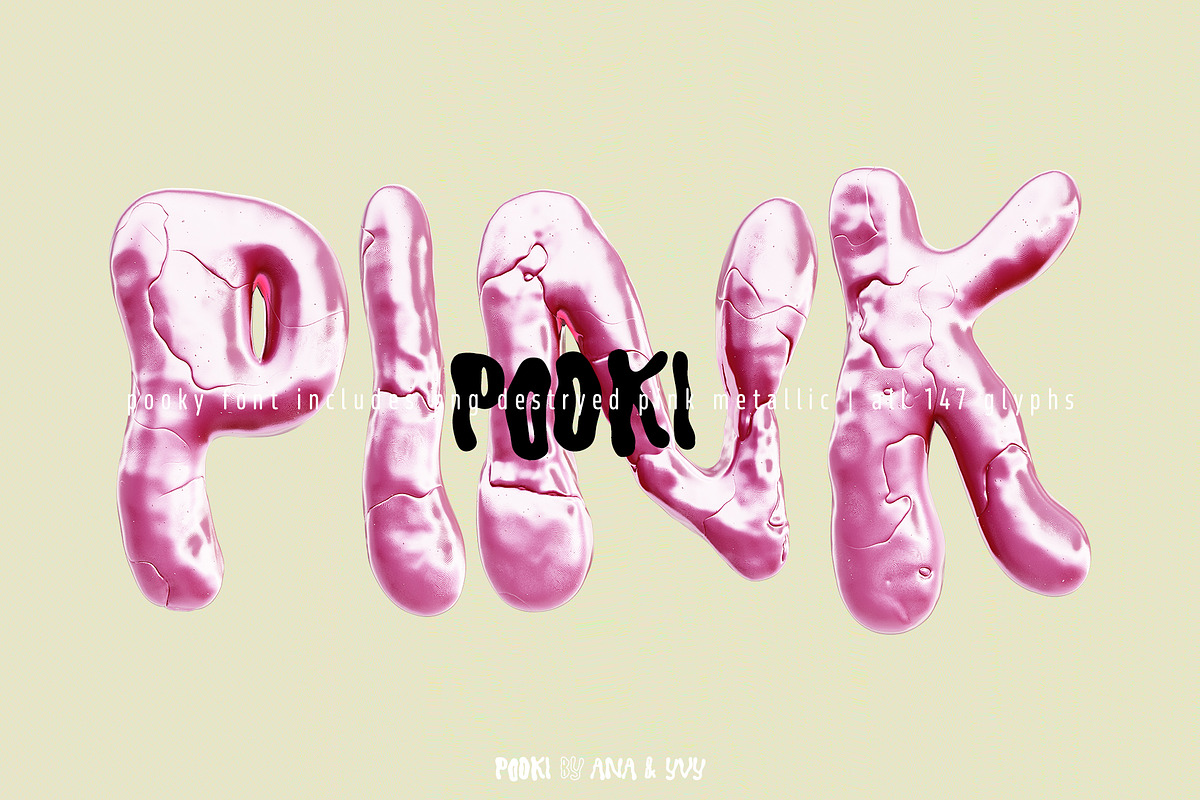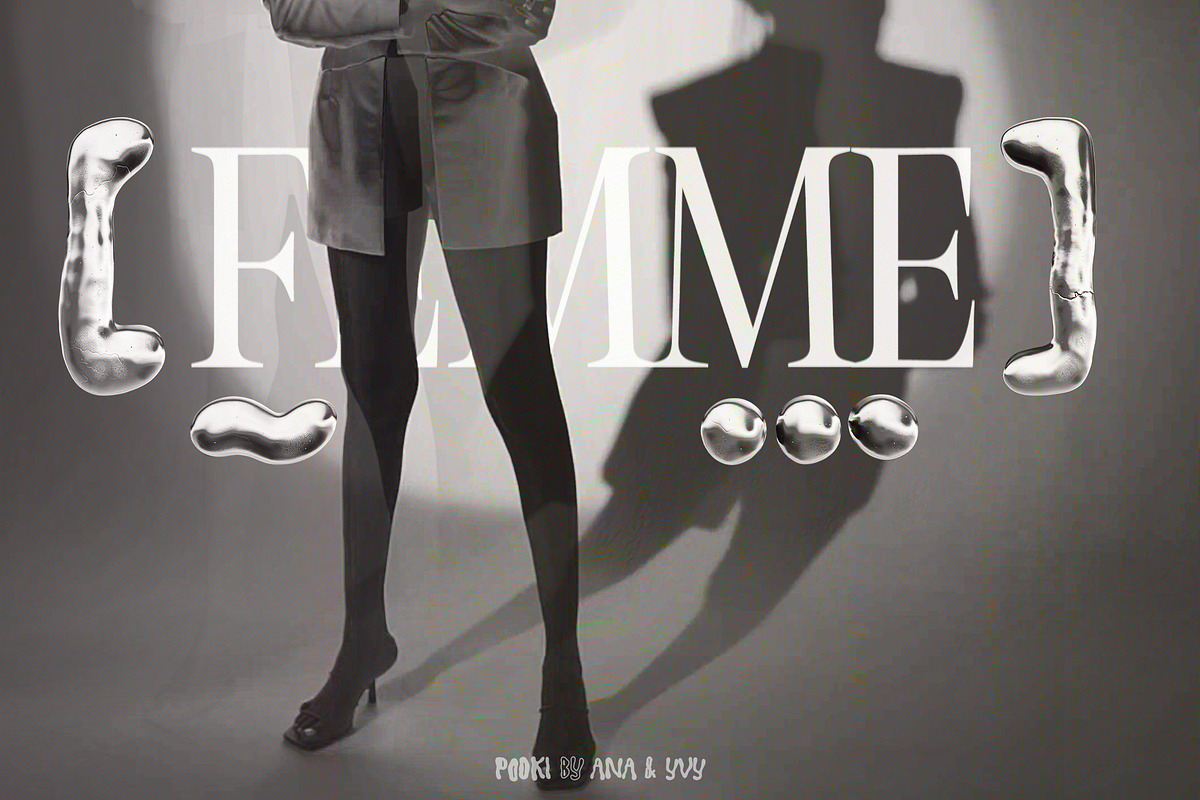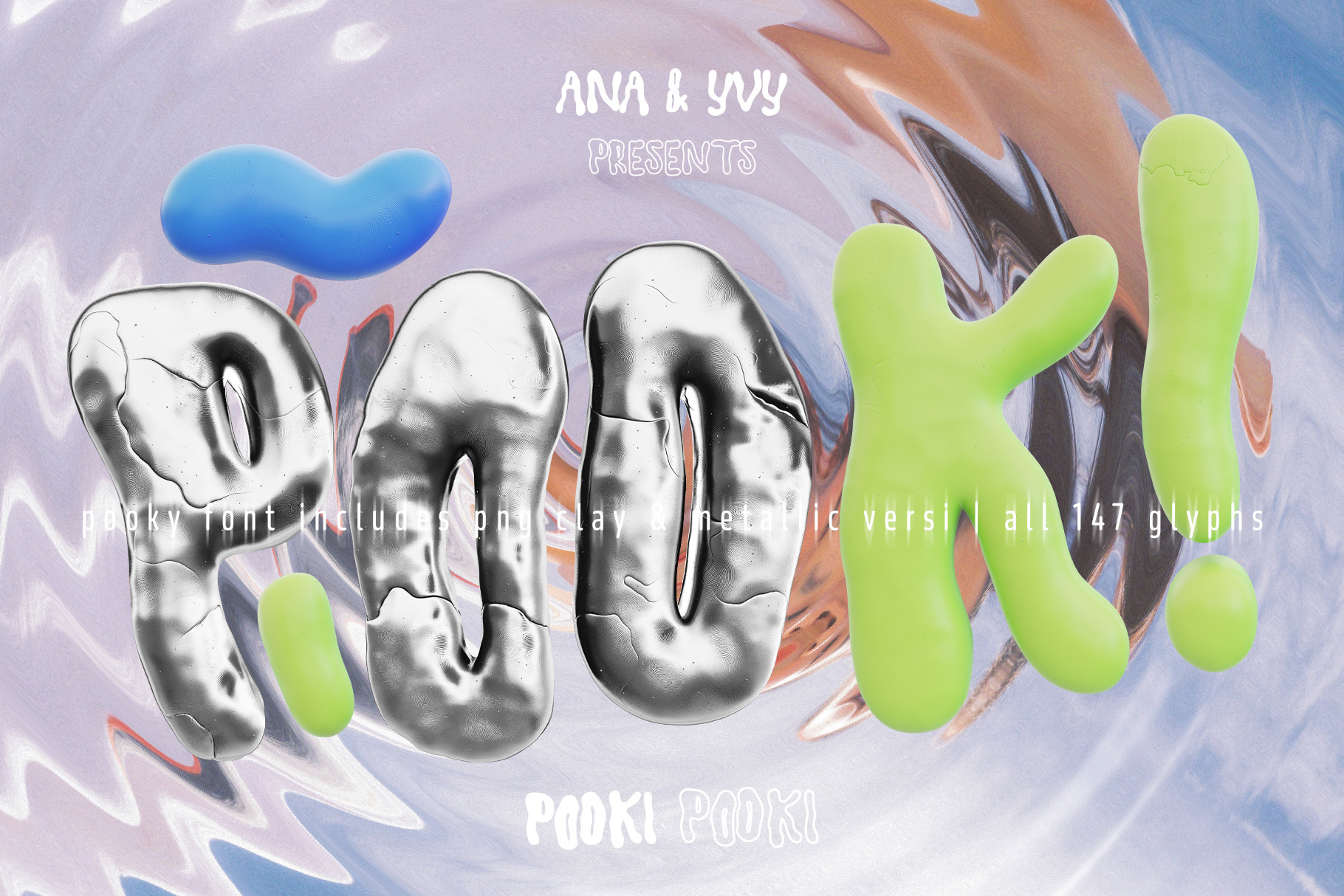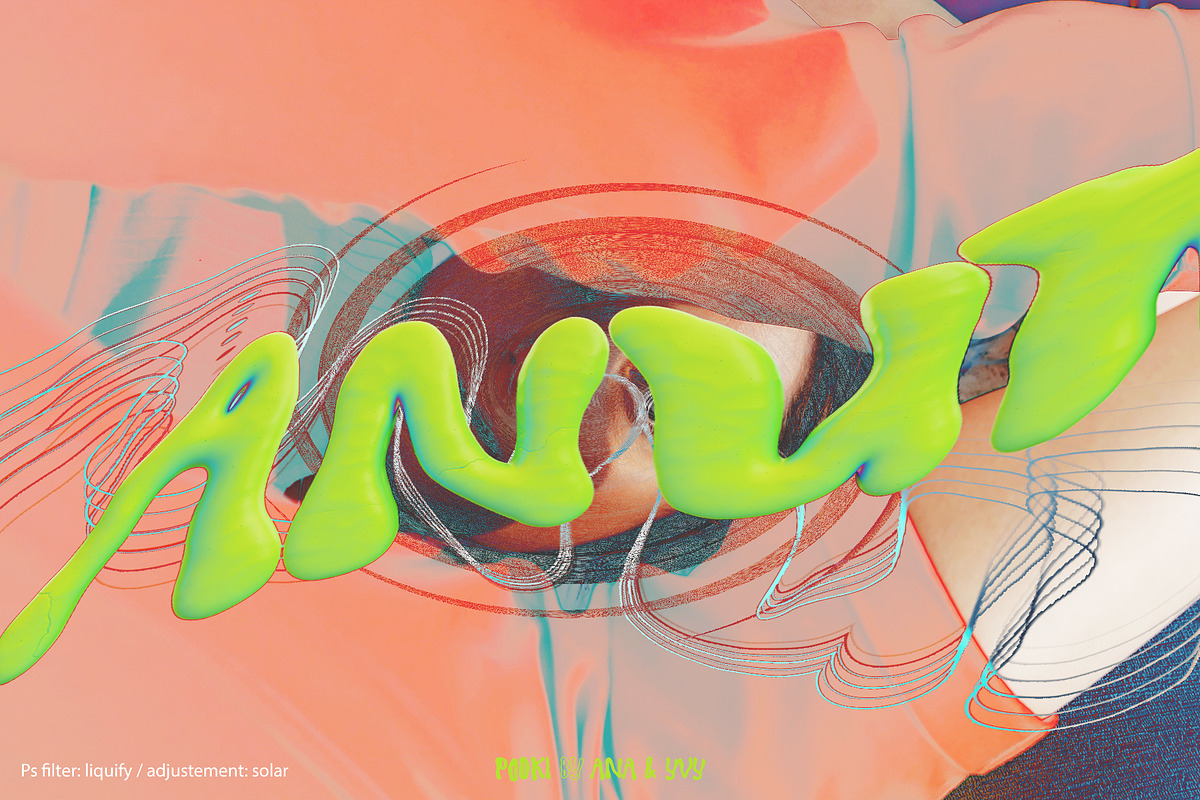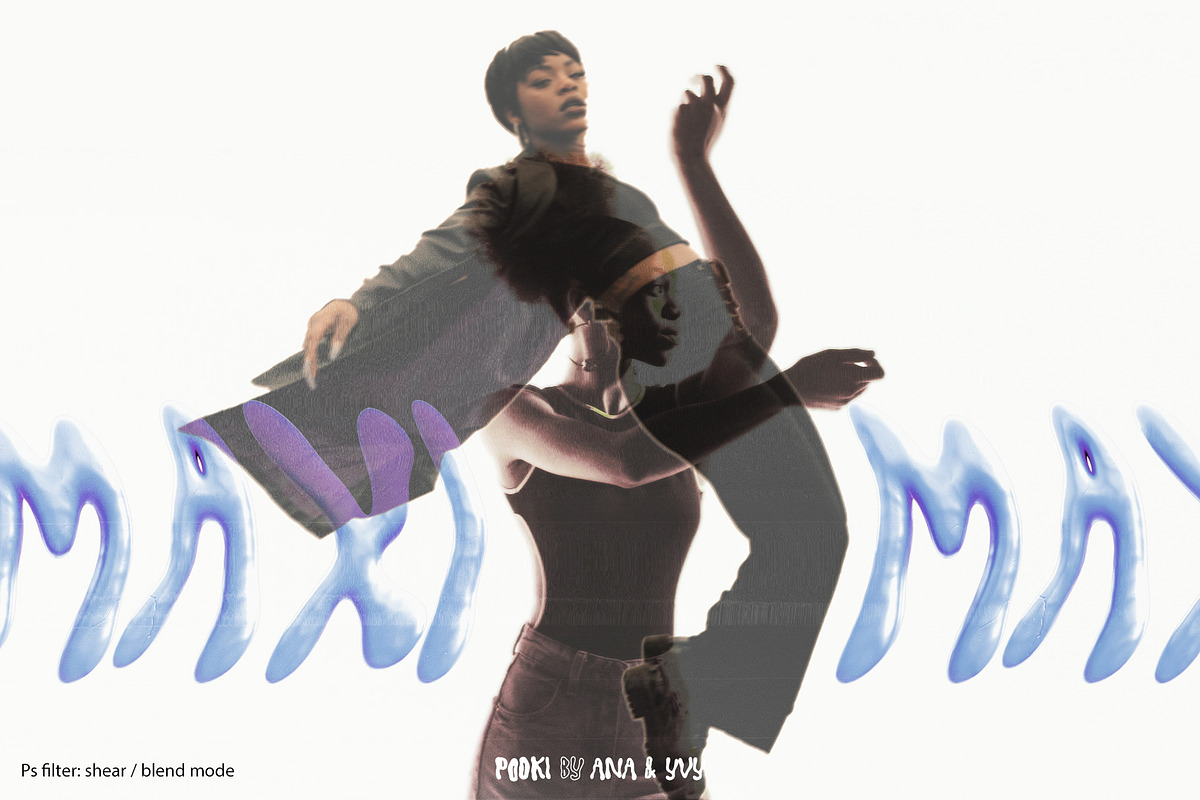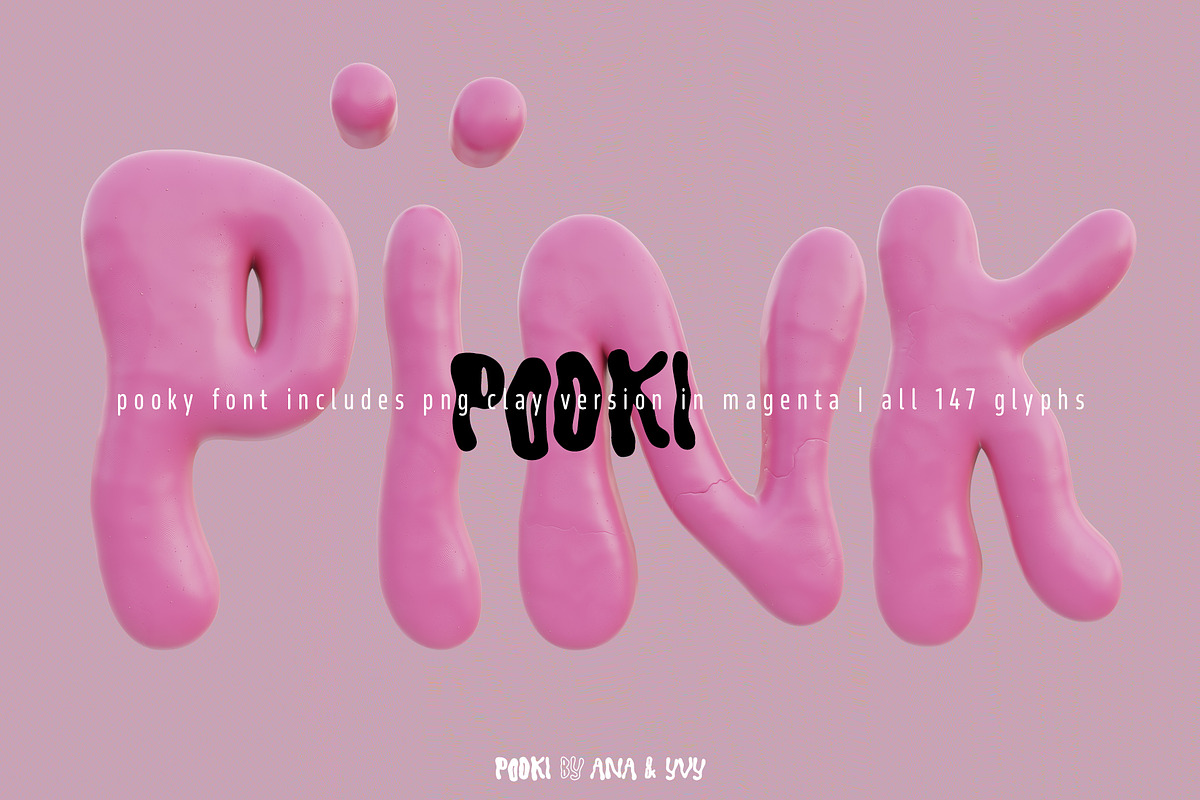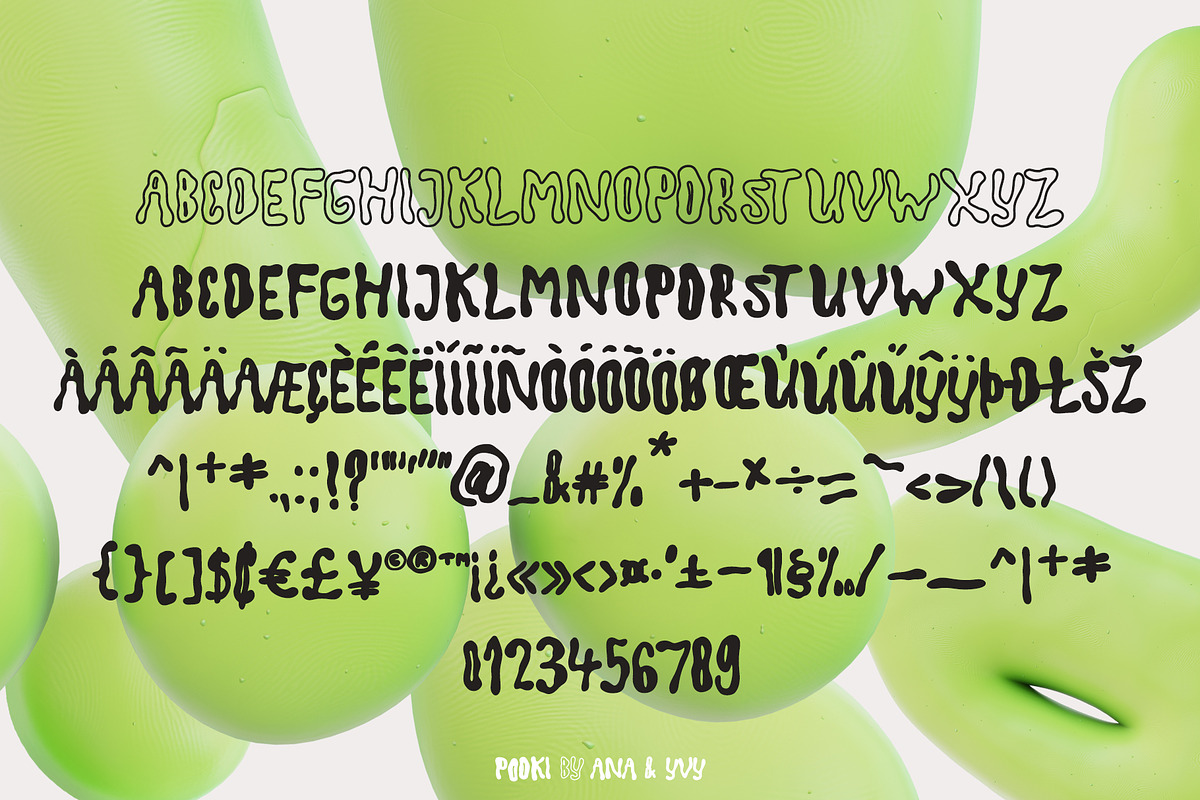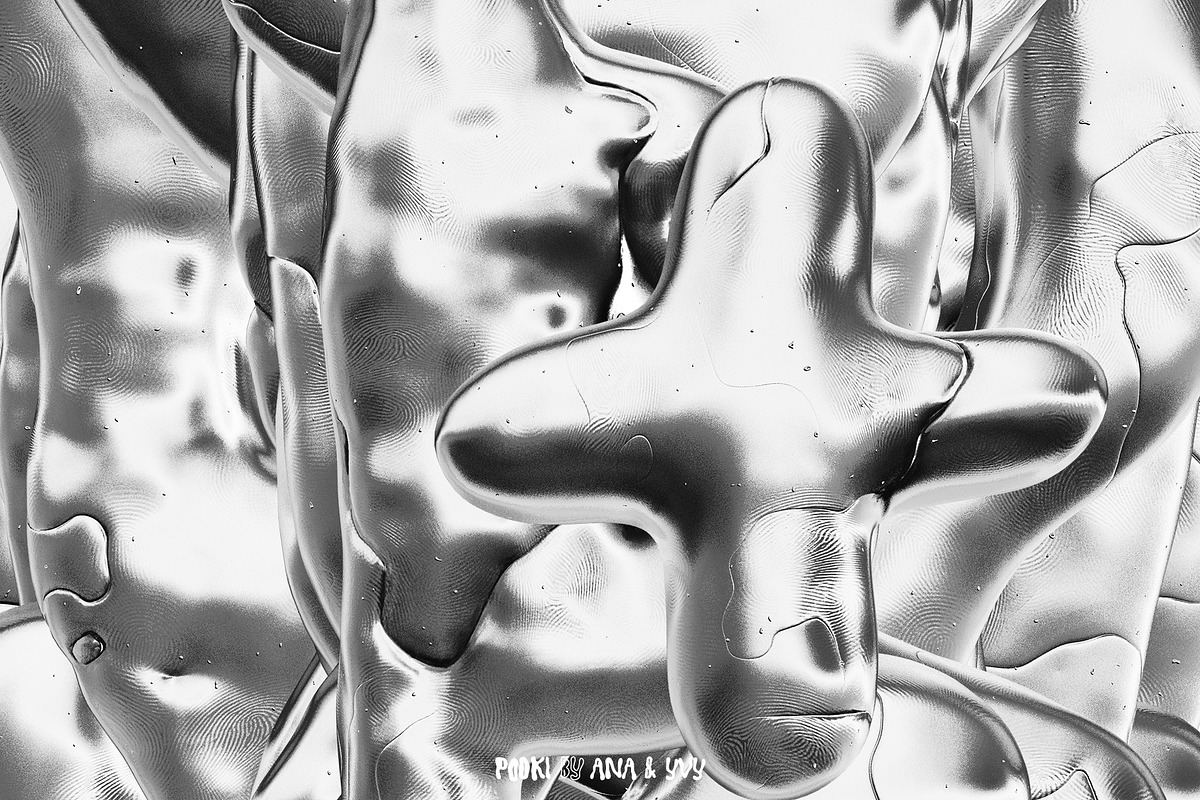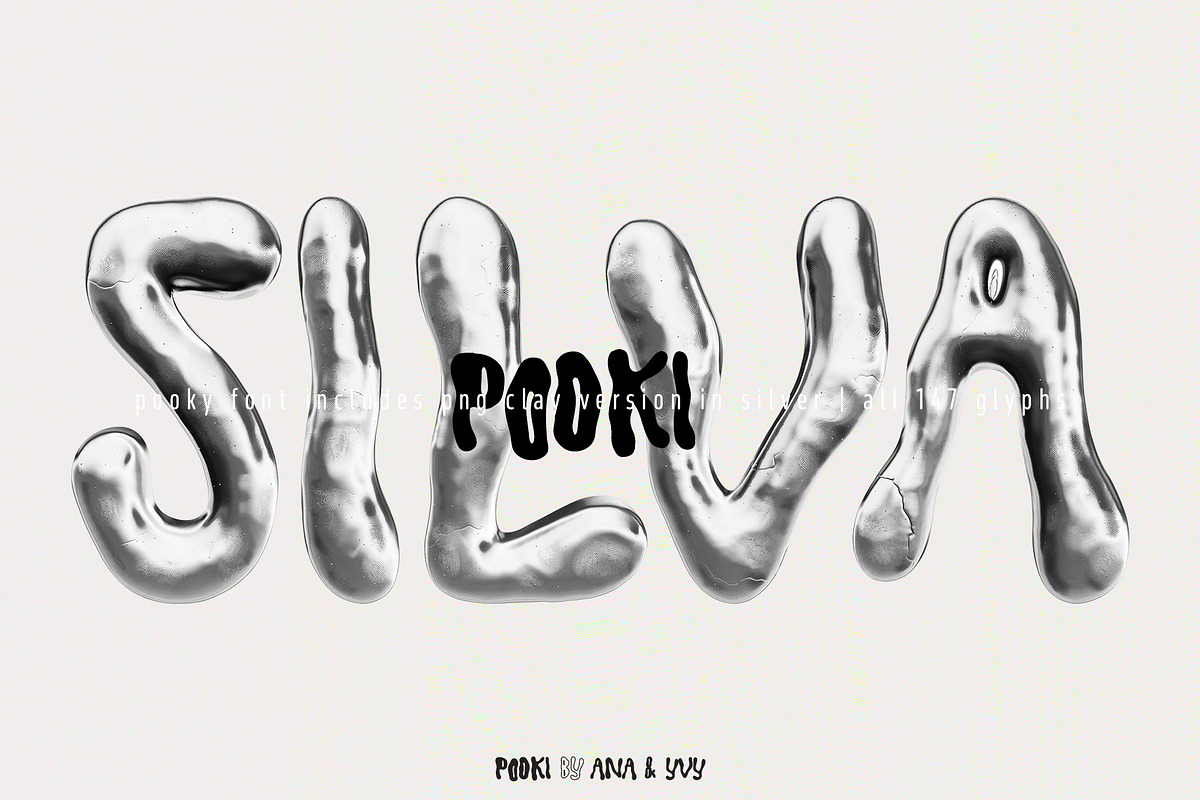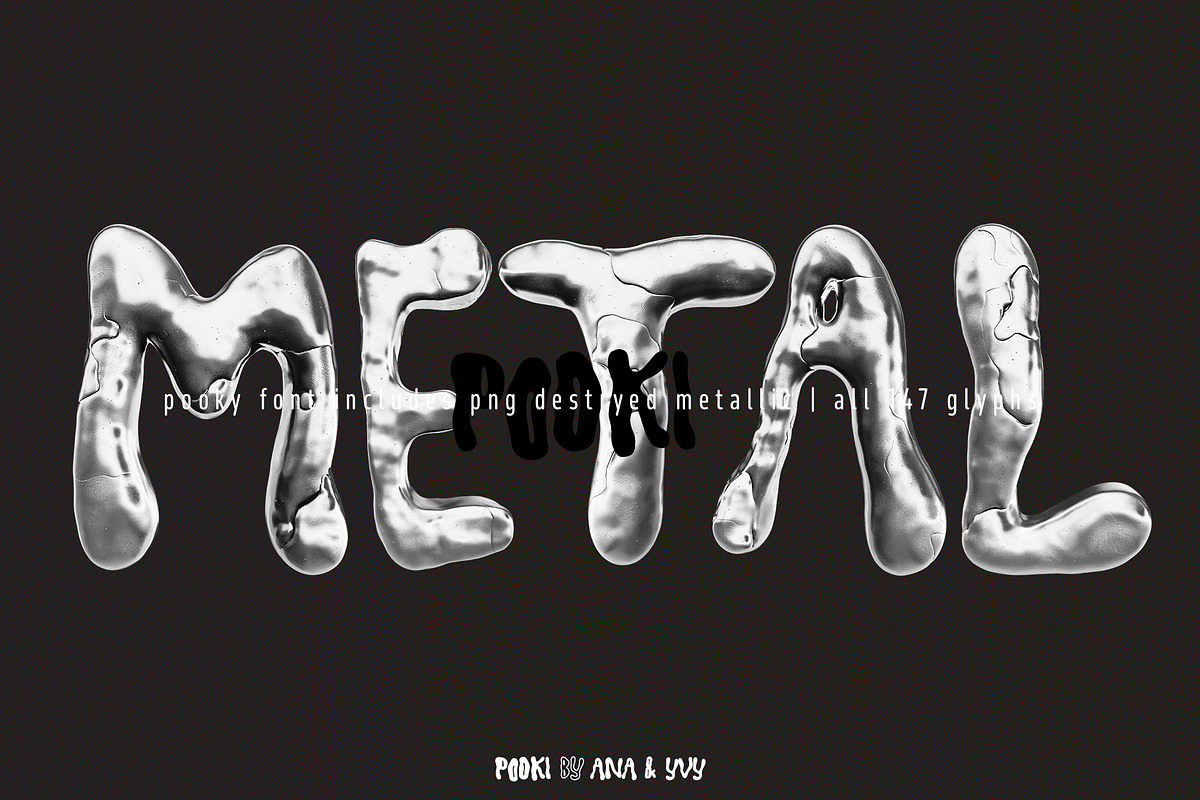
Display font POOKI | 3D metal bubble
POOKi - a wobbly bubbly 3D font | comes with multiple variations of renderings.
all 147 glyphs incl. multilingual as PNG files
- blue plasticine
- magenta plasticine
- light green plasticine
- metallic
- metallic destroyed
- metallic pink destroyed
Some preview images have filters on top and other adjustments - you'll find the used filters listed in the image corner. The whole pack includes a bonus PSD with used effects so you can look into it. This is not a tutorial (!) nor a part of the set, it is just a bonus. Please feel free to use it as a sweet learning tool.
DISCLAIMER: the metallic effect or 3D effect is NOT a filter - these are rendered elements. I don't offer any kind of metallic effect.